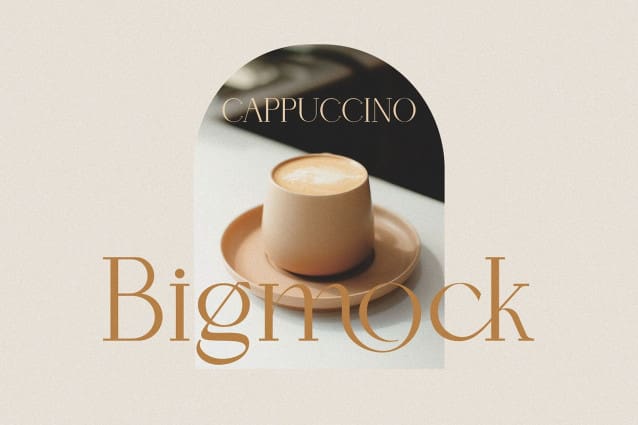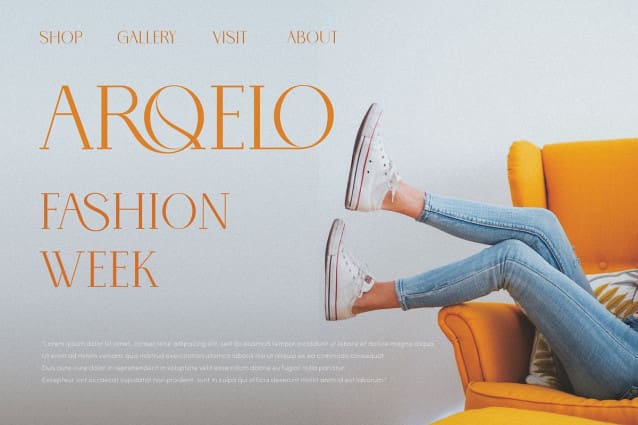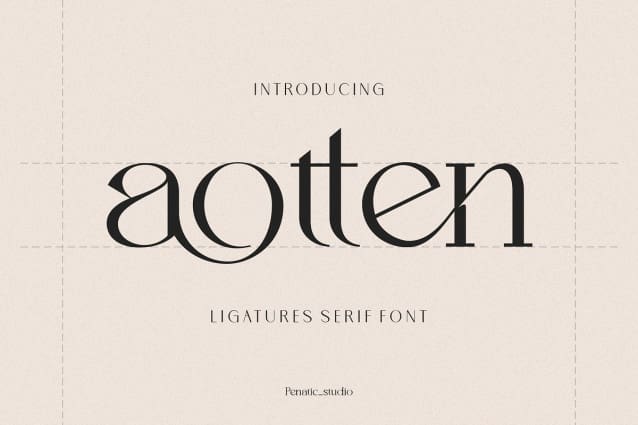
Aotten Font
Aotten Font – Ligatures serif font. Modern and elegant Serif font, lots of binders and alternative fonts. This will be an option to use in your project. Easy to use and very suitable for all your work in arranging letters. As in branding, logos, invitations, masterheads and more.